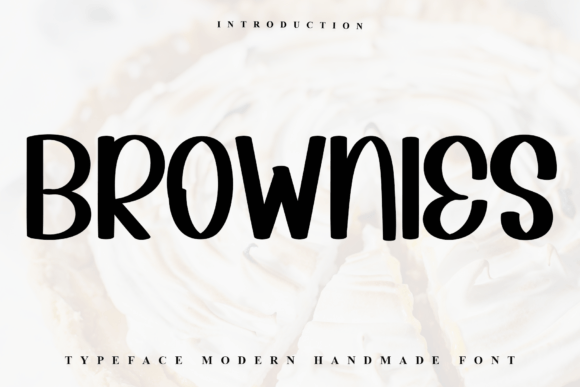
Unwrapping the Perfect Recipe for Design Success
It’s that moment when you’re brainstorming ideas for a new project and you just can’t seem to find the right font to tie everything together. The words, the images, and the overall aesthetic just aren’t meshing like you envisioned. But then, it hits you – a refreshing, clean, and oh-so-chic font that makes everything fall into place. This is where the Brownies Font comes in, a delightful sans-serif font that adds a touch of casual elegance to any design project.
Brownies Font is more than just a pretty face; it’s a versatile tool that can elevate your branding, invitations, social media graphics, and more. With its fluid strokes and organic lines, it’s the perfect ingredient to add a dash of warmth and personality to your designs. Whether you’re a seasoned designer or just starting out, the Brownies Font is an invaluable addition to your toolkit.
Brownies Font Key Features
- Font Family: Brownies is a sans-serif font family.
- Unique Characteristics: Brownies features a unique, modern design with clean lines and a friendly feel, making it ideal for digital and print applications.
- Language Support: The font family supports a wide range of languages, including Latin, Cyrillic, and Greek alphabets.
Brownies Font Review
Overall, the Brownies Font is a delightful, whimsical typeface that’s perfect for those who want to add a touch of playfulness to their designs. ✨ The font’s loose, hand-drawn feel and rounded edges evoke a sense of warmth and approachability, making it ideal for children’s books, food labels, and other projects where a friendly tone is required.
The font’s character set is decent, covering most of the basic Latin characters and some accented ones. ✨ It also supports multiple weights, from Light to Bold, which is useful for creating visual hierarchies in your design. However, the font’s language support is somewhat limited, with no support for non-Latin scripts.
The font’s legibility is generally good, with clear distinctions between letters and numbers. However, the font’s scalability is where it falls short. At larger sizes, the font’s loose connections between letters can make it appear messy and hard to read. ⚠️ This might be a concern for designs where the font will be used in large sizes or for long blocks of text.
- Pros:
- Delightful, whimsical feel
- Decent character set and weight options
- Cons:
- Limited language support
- Scalability issues at larger sizes
Brownies Font: A Practical Application Guide
The Brownies Font is ideal for use in creative projects, such as recipe books, food blogs, or advertising materials. Its playful and whimsical nature makes it perfect for adding a touch of personality to your designs.
To get the most out of the Brownies Font, use it in combination with other fonts that complement its style. Experiment with different font sizes and colors to create visually appealing designs. Additionally, consider using the font in conjunction with graphics or images to add texture and interest to your designs.
Alternatives to Brownies Font
Great Vibes Font is a modern, elegant script font perfect for creating a sophisticated and stylish design. It’s ideal for use in invitations, wedding stationery, and other formal events. Great Vibes Font has a more refined and polished look compared to Brownies Font, making it suitable for high-end designs.
Pacifico Font is a beautiful, cursive font that evokes a sense of relaxation and calmness. It’s perfect for use in beach-themed designs, spa-related projects, or any other design that requires a laid-back and soothing atmosphere. Pacifico Font has a more casual and airy feel compared to Brownies Font, making it suitable for designs that need a touch of elegance and sophistication.